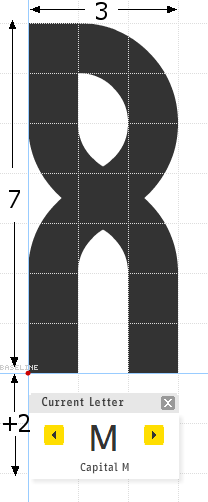
Oh, yeah!! I can read it fine, actually... it's cool.
9/10!
awesome.
Well, Mm and Ww are the most difficult to decipher. Also, you could’ve taken a more traditional approach with Q, since lowercase has descenders anyway. But I like the overall feeling :-)
Congratulations! FontStruct Staff have deemed your FontStruction worthy of special mention. “Monotwist” is now a Top Pick.
very tricky. i like it
Thank you guys. I finished the basic greek, I'm now working on cyrillic.
What was the grid size?!?!?
I'd say 3 by 7 plus 2 for descenders. Filters are 2:
That is awesome!
Looks like some pretty tough composites! Must've been hard.
That is awesome!
elegant >ω
I love the layering by making the bricks bigger
I made an alternative font taking care of a few issues with this font. What do you think of it? I'm not trying to say that this font is bad; I'm just taking advantage of the minor room for improvement. Some of my letters weren't as good, actually... but I tried.
@CMUNK : Your Monotwist served as structural inspiration for my brand new work "CHALICE", hope you'll like it.
@CMunk : Just published what will be the last, definitive evolution of Chalice, my font freely inspired by this one. Thanks once again for great support and your motivating work. Here's the link
Wow!
My recent "Garage Garbage (GG)" is different, but some glyphs are similar though, and I'm already thinking of your Э,З as alternatives for my GG, if you don't mind...
WOW just cool. One of my favorite mono fonts of all time.
@CMunk: CHALICE my font first inspired by monotwist has been completely redesigned to be more a font than a cool collection of shapes
But T Looks Like a 1